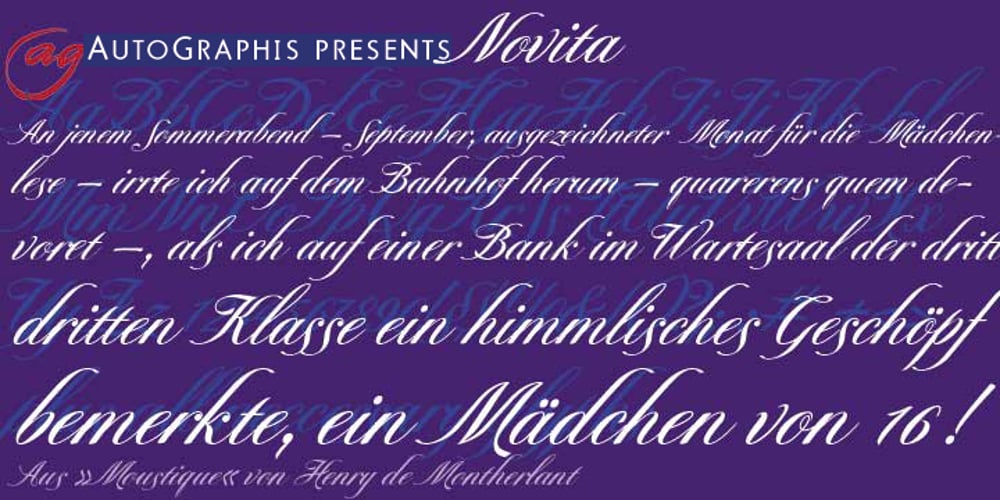
Novita Font Family was designed by Gert Wiescher and published by Autographis. Novita contains 1 styles and family package options. Novita is a new something. This font is a new very elegant – extremely slanted – joining script with long ascenders and descenders. It is the fiancée of Novido which is the more elaborate male part of this font pair.